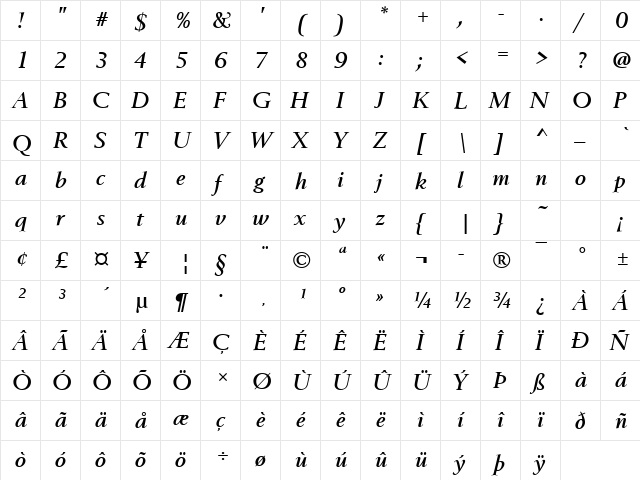
BerlingT Bold Italic
Design Context for BerlingT Typeface
BerlingT is a composed and adaptable typeface that performs quietly and consistently across a wide range of design contexts. The dynamic lean of this cut emphasises speed and emphasis in any layout. Its bold stroke weight gives it real presence on the page.
Pro Tip: Try BerlingT for annotation and caption copy alongside an upright companion — the contrast in angle creates a dynamic but ordered typographic system.